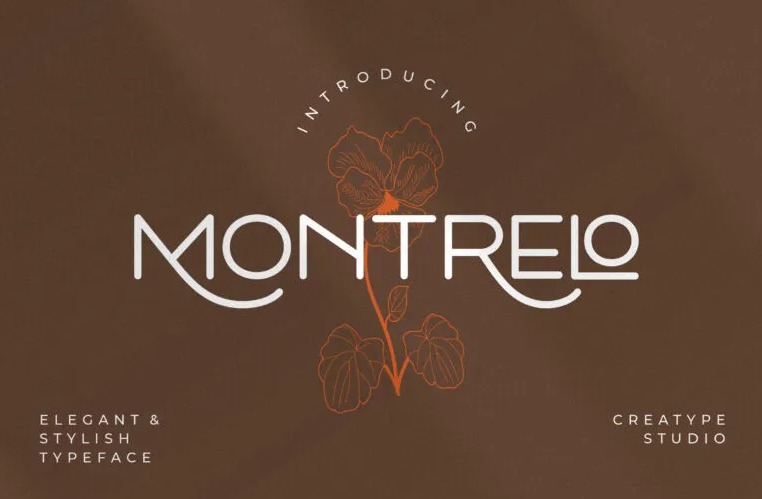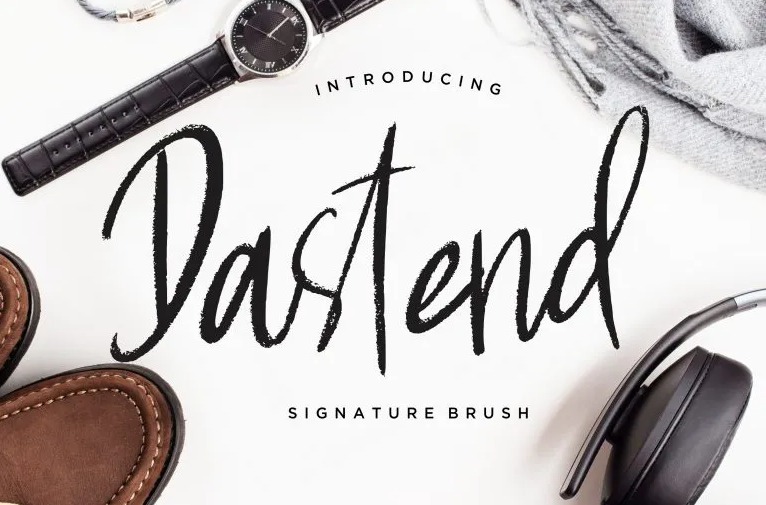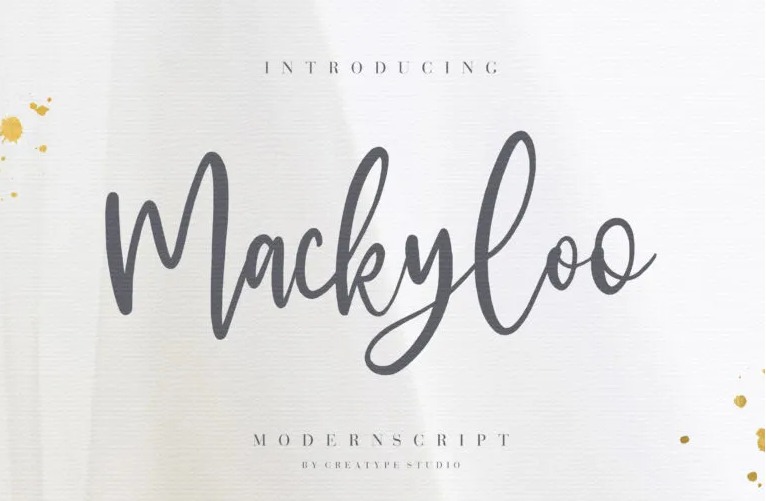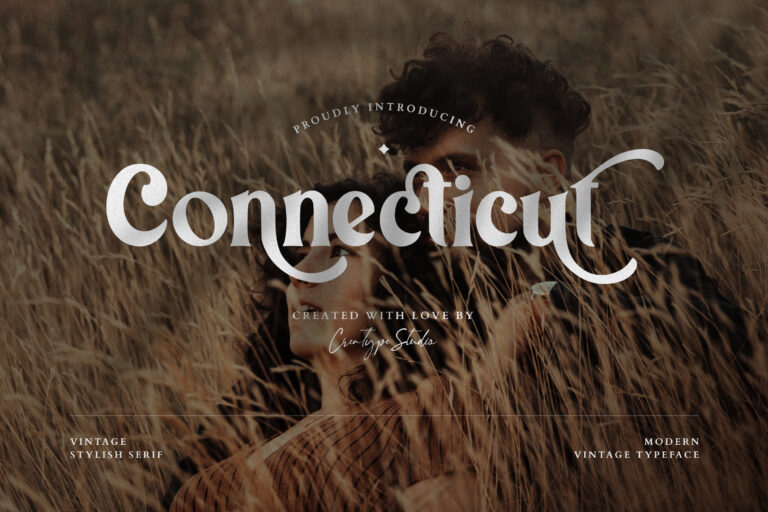
Top 20 Font for Clothing Brand, Most Luxurious and Elegant
Top 20 Font for Clothing Brand Most Luxury and Elegant
Own a clothing line? Make sure that you use the fonts that represent your brand. It appears as an unimportant thing, but choosing fonts for clothing brands is one of the branding key parts.
Find out one of a font kind for your clothing business branding element in this post!
20 Best Fonts for Clothing Brands in Exquisite Styles
Here is the list of curated fonts that speak elegance for your clothing branding.
1. Bulgatti
Bulgatti comes in medium weight in each of its glyphs, with solid ligature, and smooth stylistic alternates. Besides, little swashes that look natural to each of the characters add a sophisticated vibe through simplicity. This font is a flawless choice for exclusive and elegant apparel such as suits, tuxedos, and even accessories.
2. Estrela Signature
In case you’d prefer to use handwritten typefaces for a feminine clothing brand, Estrela Signature will do the magic in catching consumer attention. The weight and height of the characters are different, it seems like realistic handwritten letters which bring an intimate feeling effortlessly.
3. Montrelo
Montrelo Font
Fancy the sans-serif typefaces? You can ignite the stylish and classy tone of your apparel brand using Montrelo sans serif font. Although sans-serif can be boring, Montrelo surely has a distinctive vibe. The typeface provides an exclusive mood whether you use it in large or small sizes.
4. Estylle Madison
Calligraphy fonts are always suitable for branding, editorial design, and also logos. The prominent reason is the features they have, like the swash forms both in the initial and final characters. Estylle Madison by Creatype Studio comes with flowy ligature for lower cases and various kinds of swashes for your clothing branding and logo.
5. Massyabhan
Looking for a distinctive font for a clothing brand logo? You can create an exclusively elegant look for the logo by using the Massyabhan Arabic font. Some of the glyphs come with ornaments like visible and thick dots, which mimic the actual Arabic letters. Still, this ornamental font is legible and classy.
6.  Connecticut
Connecticut is the serif font that instills suave touch in a modern way. This font is the right vintage typeface to incorporate with clothing products that have the 60s and ’70s feelings, especially for men’s apparel.
7. Mossley
The fact that handwriting fonts are timeless is undeniable. But Mossley comes with a natural handwriting look with its oblique typeface style. Implement Mossley typeface, and its harmonious ligature in your product packaging and design will help you highlight the classy look of your brand.
8. Aksana
Using brush lettering fonts for clothing brands is not taboo. Rather, the thicker brush strokes it has a match to sound a louder branding statement. Aksana has that manly dashing mood. Hence, it is applicable for clothing items’ labeling, packaging, and photography.
9. Modest
You may consider letters with gaps between their joints and strokes to appear informal. In fact, that serif font style called stencil functions as a high-legibility font.
In addition to that function, Creatype Studio creates Modest stencil sans with supple alternate choices you can put as elegant ornament for the clothing brand design and branding project.
10.  Mackyloo
Mackyloo
Stamp your elegant and formal clothing items in consumers’ minds using Mackyloo typefaces. As a script font style, Mackyloo comes with versatile decorations. Pick this font for clothing brand if you want to synergize casual touch with classy vibes.
It still is amazing to represent especially feminine clothing products, such as wedding dresses and dresses.
11. Chanceux
Chanceux Font
With a casual touch, this old-looked serif font style fits the clothing product branding project, both for women and men. You can use Chanceux as a web font, or apply all the extensive glyphs in product labels, photography, and packaging.
12. Porcelain
When you examine the Porcelain typeface carefully, you’ll see that each of the characters has a different weight and width which make the strokes look sleek and clean. Those characteristics make this font look humbly elegant. It works well with women’s luxury clothing brands.
13. Dastend
Dastend
Dastend is a combination of brush and script font styles that become a versatile yet classy choice of fonts for clothing brands. Along with the tag or product label, use this font as the text element in brand advertisements or packaging to leave the brand marks in mind.